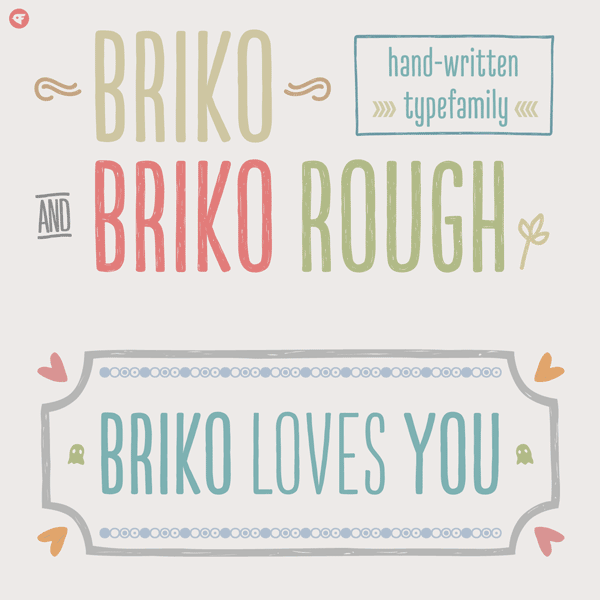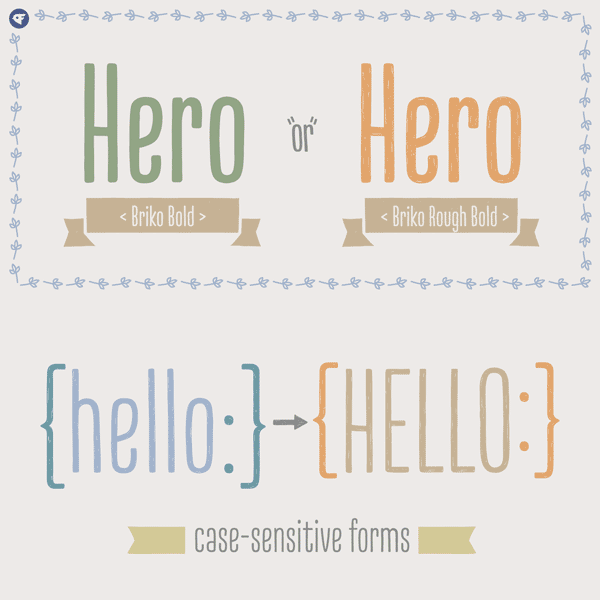
The handwritten Briko font family.
Typeface designer Paul Chen of foundry Nine Font has created Briko, a handwritten type family in 2014. It’s a very legible hand-crafted typeface, which is available in two weights and two styles: Briko and Briko Rough (a textured version). The Briko type family provides a slightly bumpy outline with friendly soft edges that give the handwritten typeface a pleasant and natural look. Briko Rough offers a particularly handmade appearance. Both versions work great for different headlines, posters, and any kind of design that requires a legible handwritten type family.
In addition, Briko includes a collection of ornaments, catchwords, and frames also available as basic version and rough version.